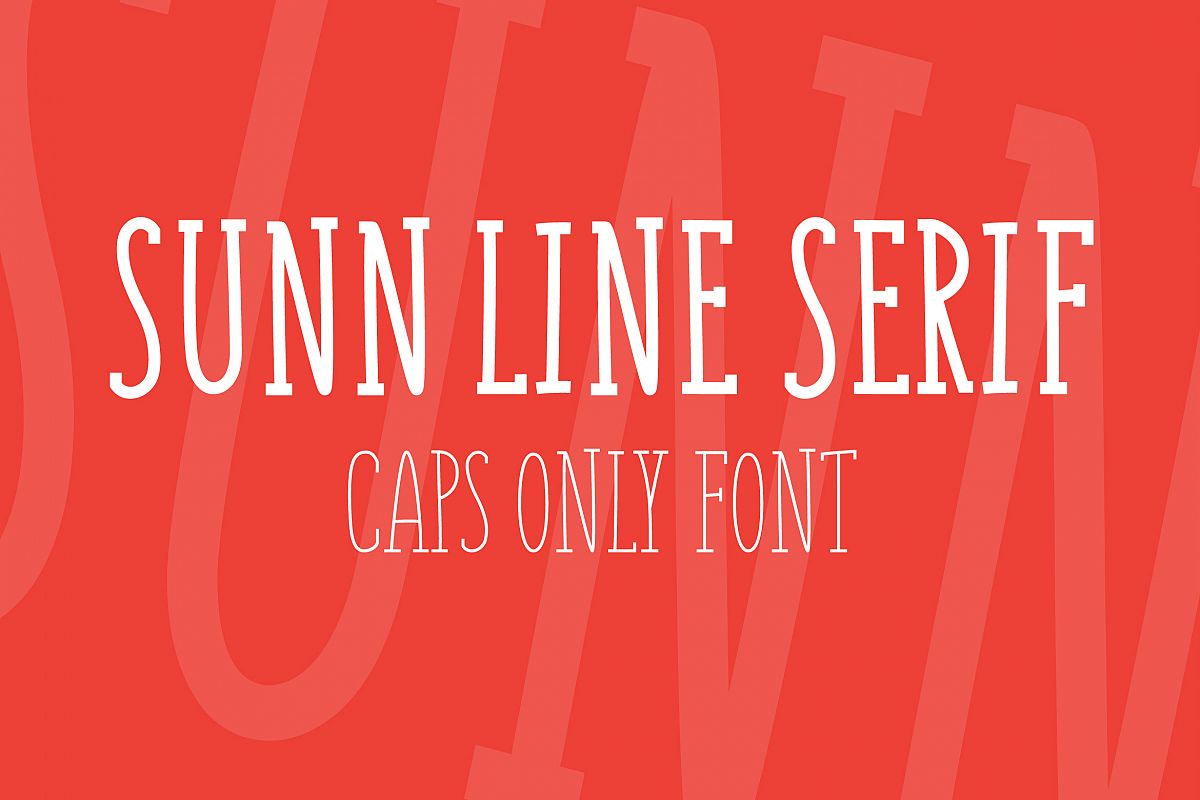
SUNN Serif Line Caps Only Font
SUNN Line Serif Caps Only Font comes in two weights - Bold and Regular, it has only latin uppercase letters, numbers and some symbols. Lightweight.